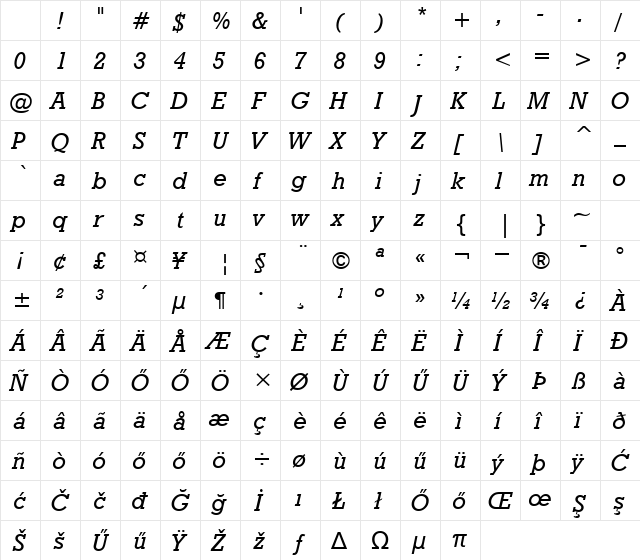
H_GeoSlb 712 Md BT is a composed and adaptable typeface that performs quietly and consistently across a wide range of design contexts. The slanted form adds forward momentum and visual energy.